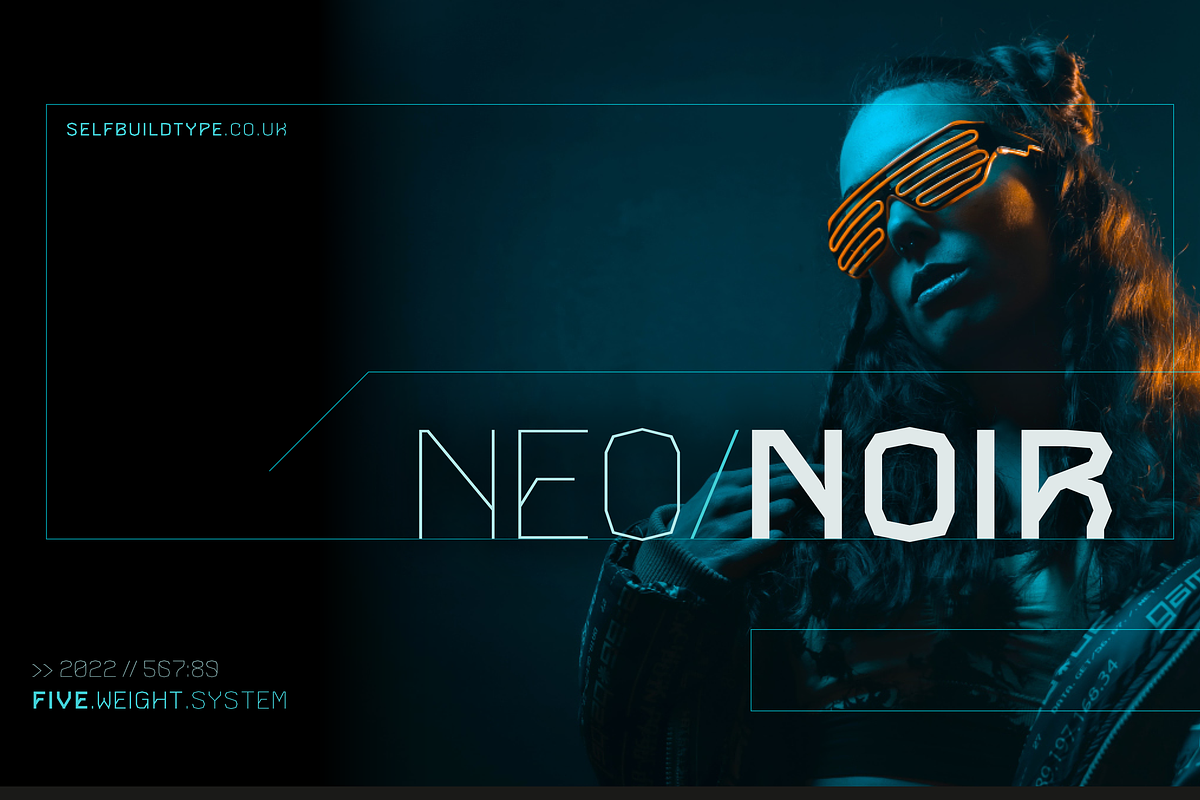
Neo Noir - Futuristic font Free Download
Neo Noir – Futuristic Font Free Download is a cutting-edge typeface crafted for bold, modern, and high-tech design projects. Please note, you are required to purchase this font for commercial use. It is available for free download for testing and personal projects only.
With its sleek lines, geometric edges, and sci-fi-inspired aesthetic, Neo Noir is perfect for tech branding, video game titles, digital posters, UI design, and futuristic concept art. It brings a cinematic, cyberpunk vibe to any project, making your typography feel powerful and forward-thinking.